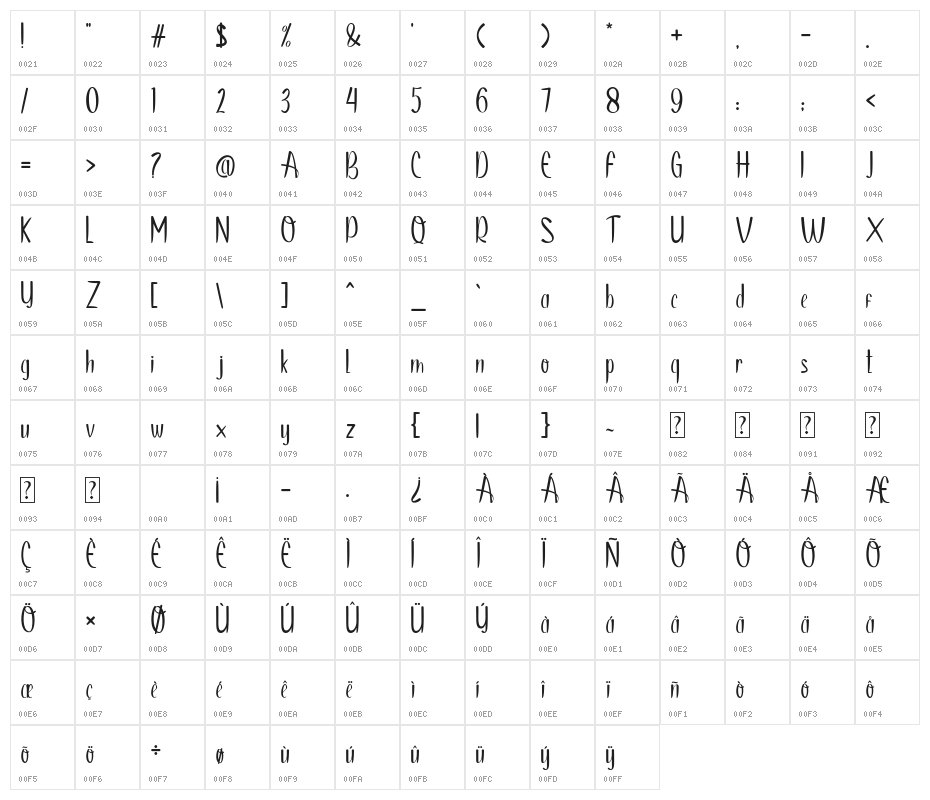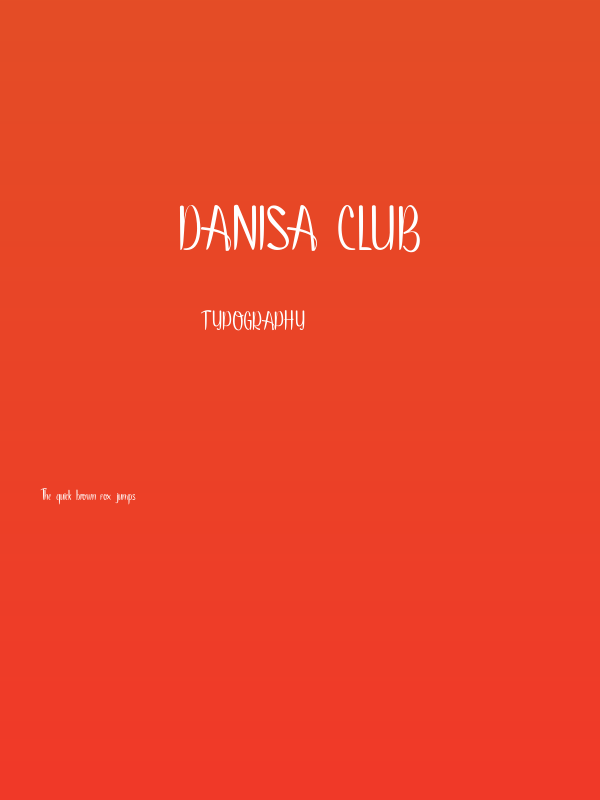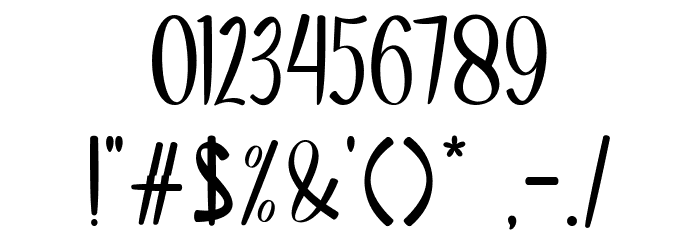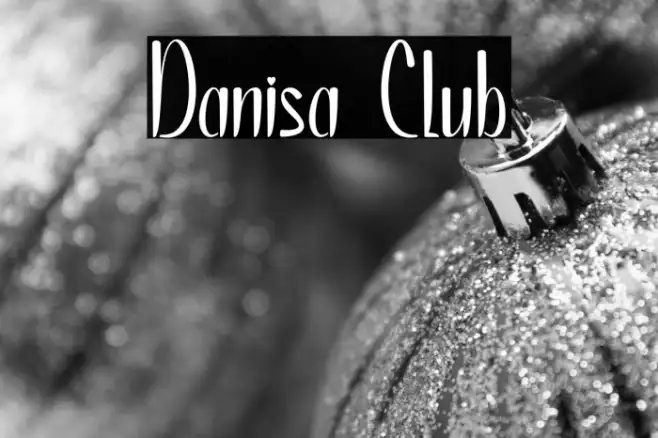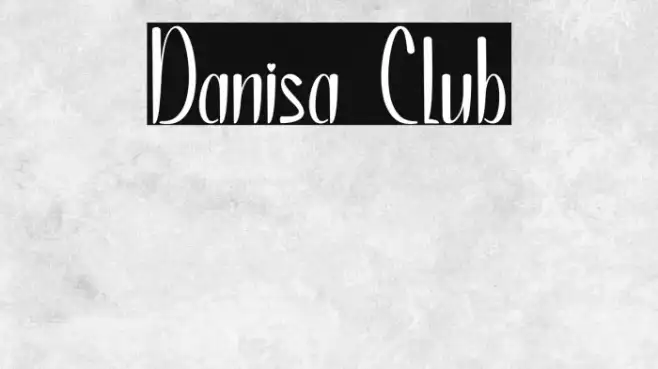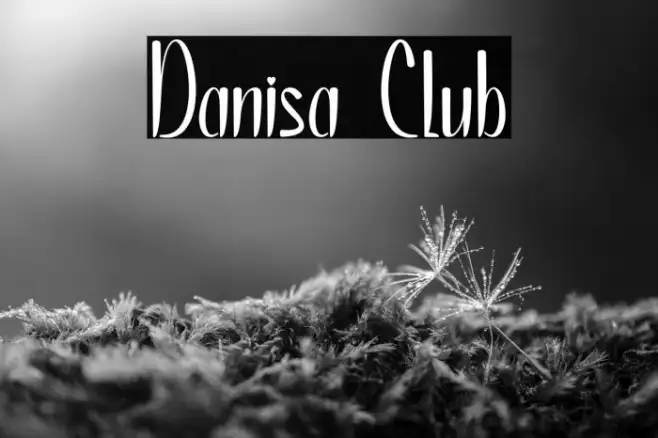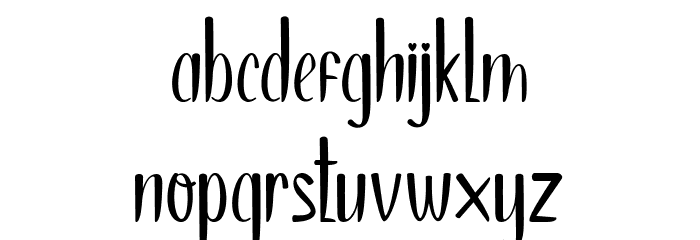
Danisa Club Font
Danisa Club Description
This font features a playful and whimsical style with a handwritten appearance. The letters are tall and slightly narrow, with a mix of thick and thin strokes that add a dynamic feel. The uppercase characters are bold and expressive, while the lowercase letters maintain a consistent flow with rounded edges. Numbers and special characters are designed to match the overall aesthetic, providing a cohesive look. The font's unique character shapes make it stand out, offering a creative and artistic vibe.